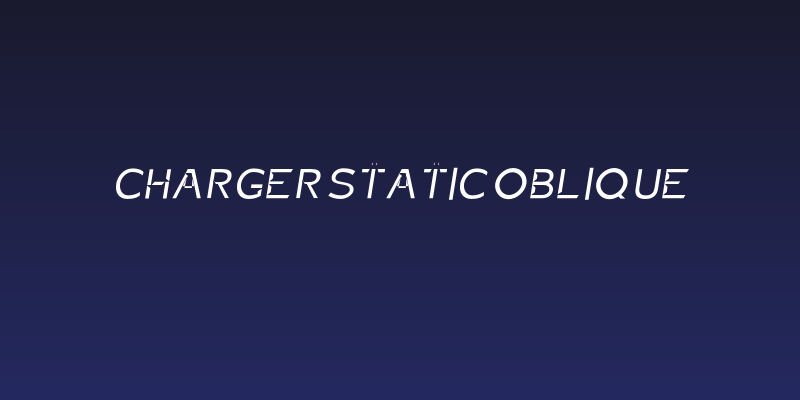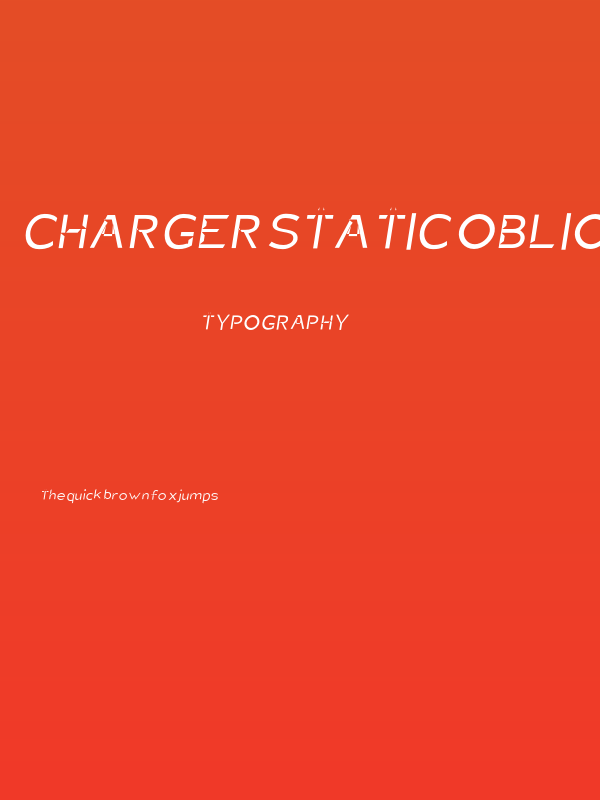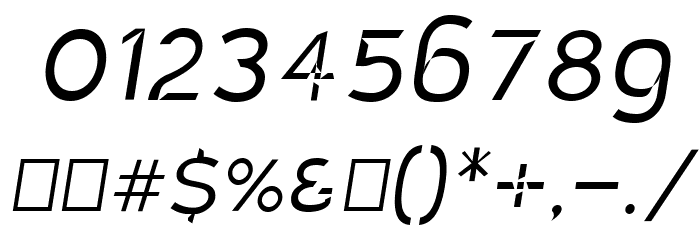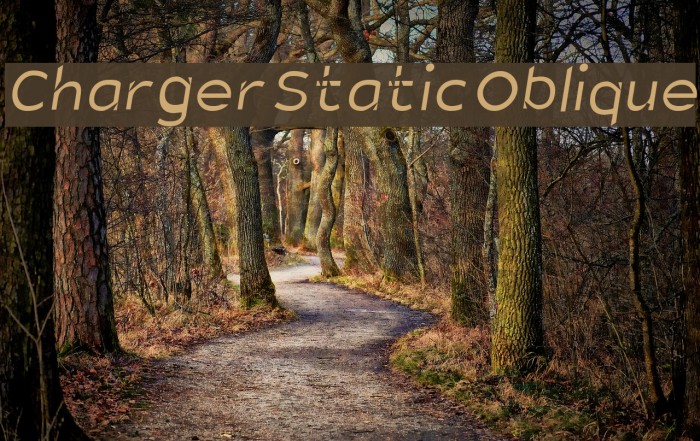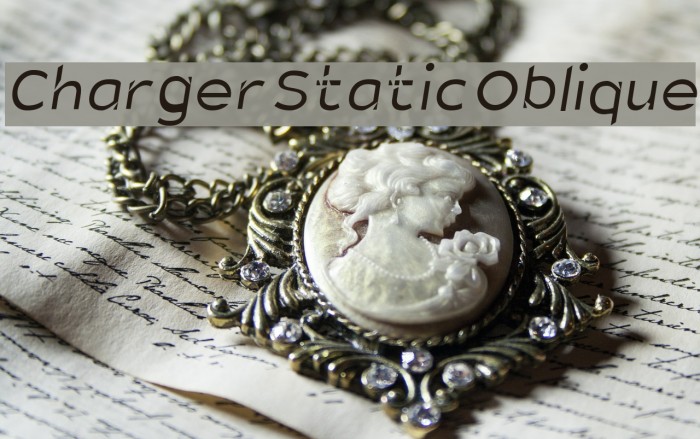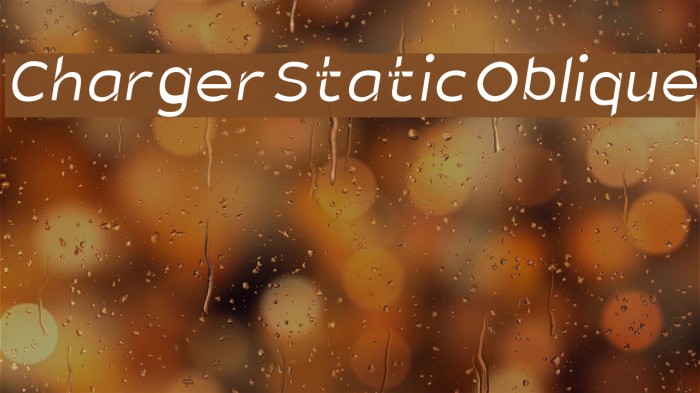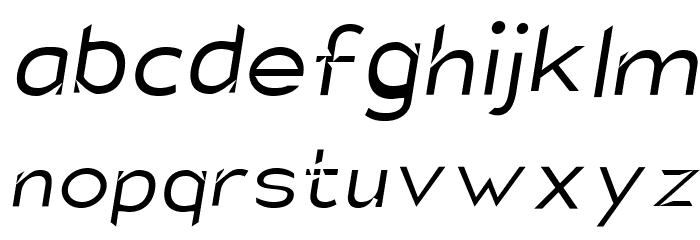
Charger Static Oblique Font
This font exhibits a dynamic and modern aesthetic with its oblique style, characterized by sharp angles and a forward-leaning posture. The uppercase letters are bold and assertive, while the lowercase maintains a consistent slant, giving the typeface a sense of motion and energy. The numerals and special characters follow the same oblique pattern, ensuring uniformity across all glyphs. The strokes are clean and precise, with a medium contrast that adds to the font's readability and contemporary appeal.
| Use Case | Logos, Headlines, Advertising |
| Proposed Projects | Ideal for branding, sports team logos, dynamic advertising campaigns, and modern web design. |